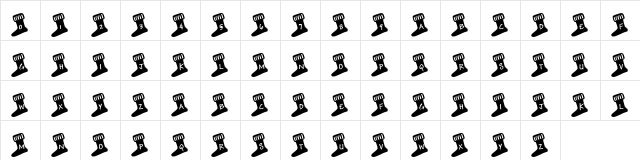
pf_xmas sock Regular
Design Context for pf_xmas sock Typeface
pf_xmas sock is a composed and adaptable typeface that performs quietly and consistently across a wide range of design contexts.